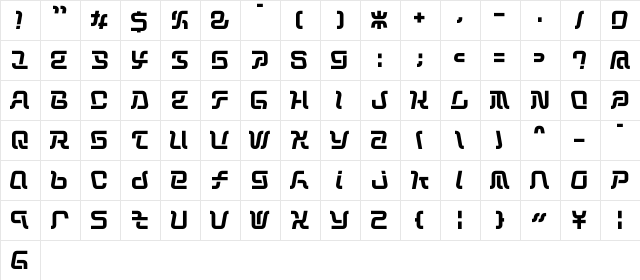
OPERATION Regular
Design Context for OPERATION Typeface
OPERATION is a composed and adaptable typeface that performs quietly and consistently across a wide range of design contexts.